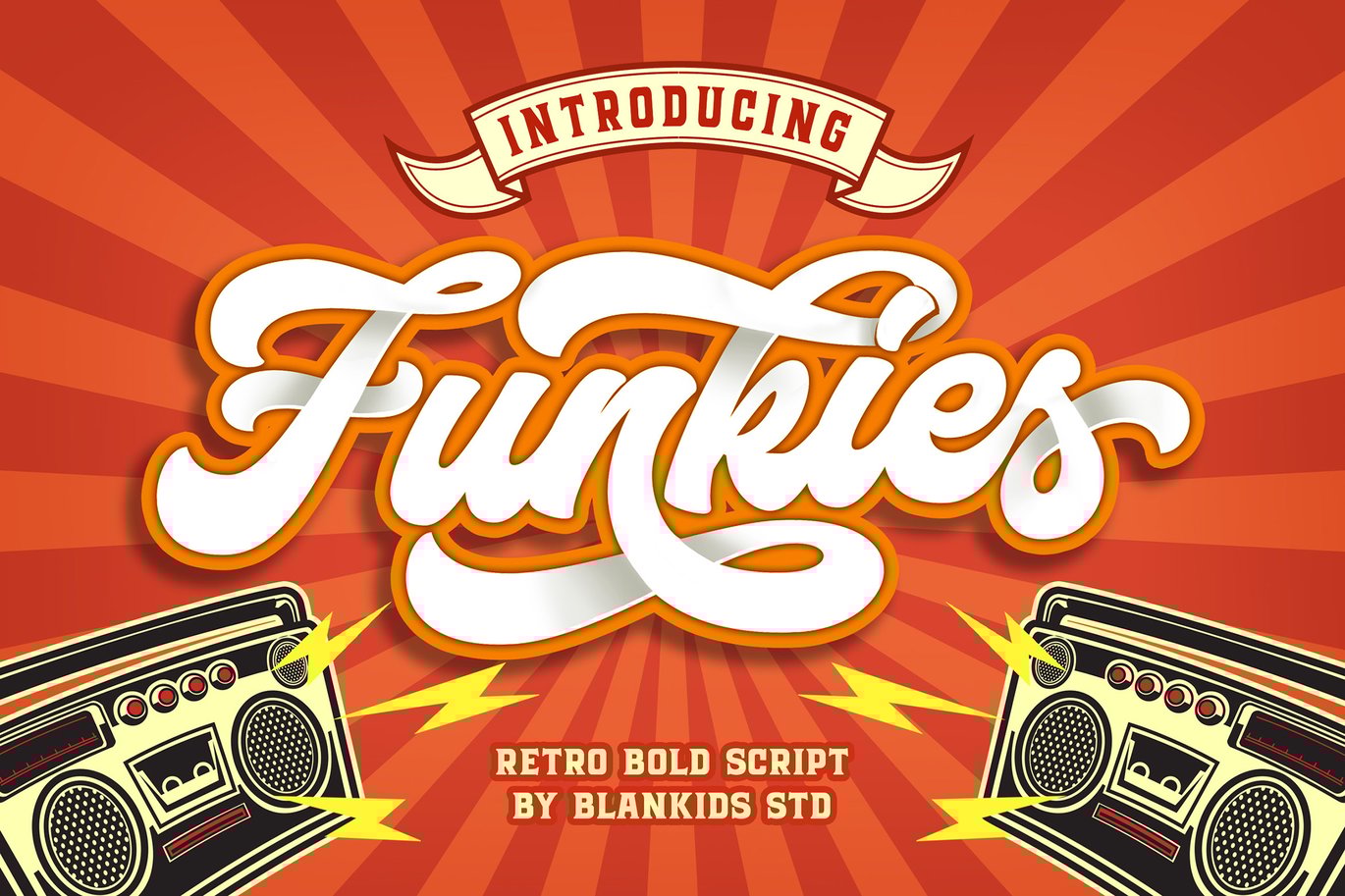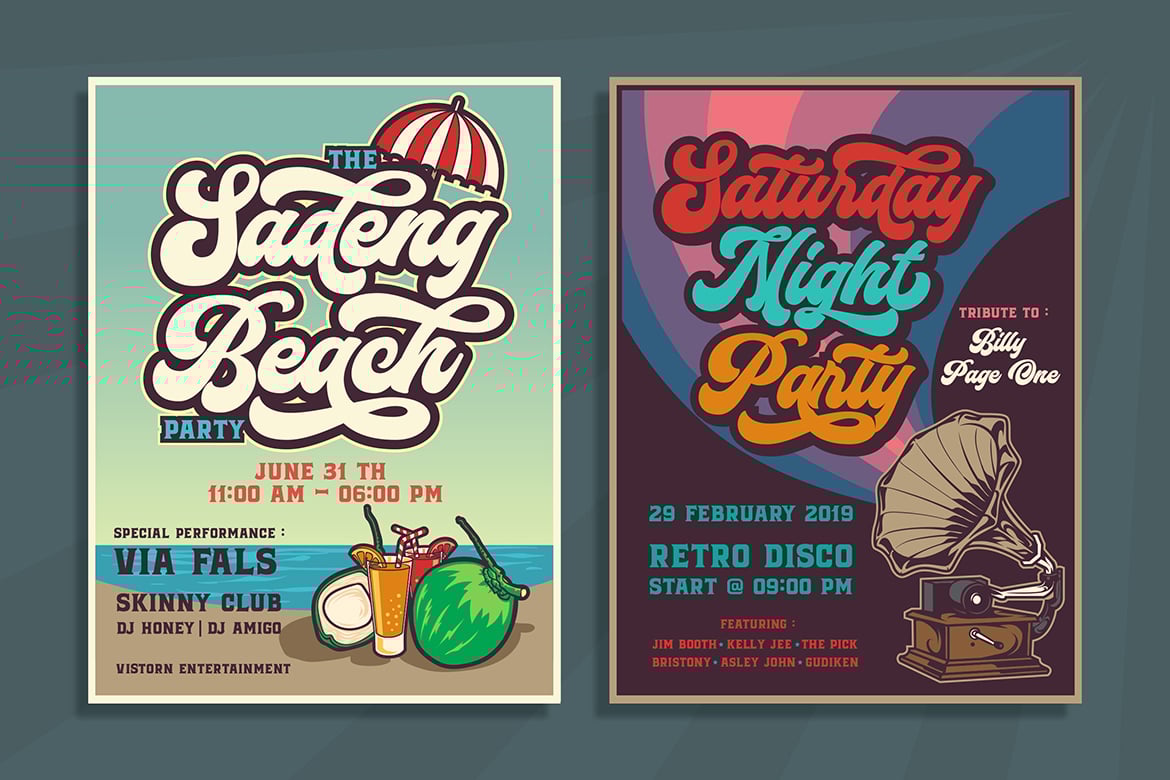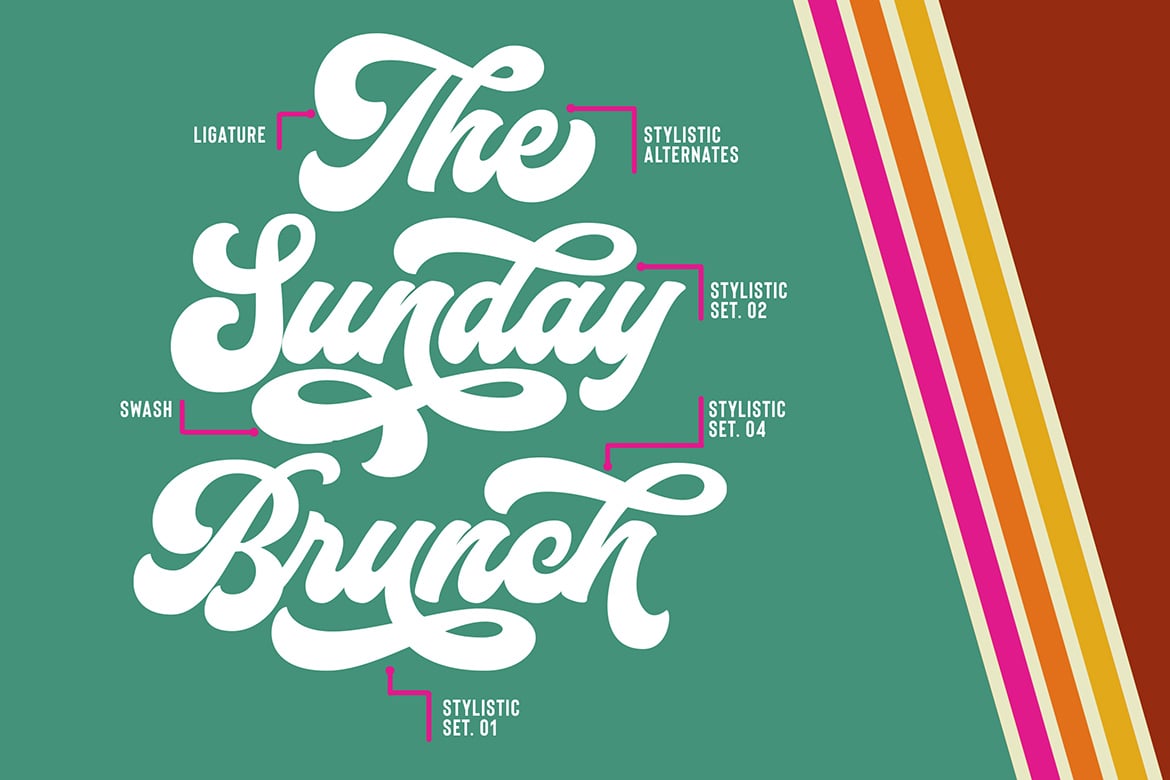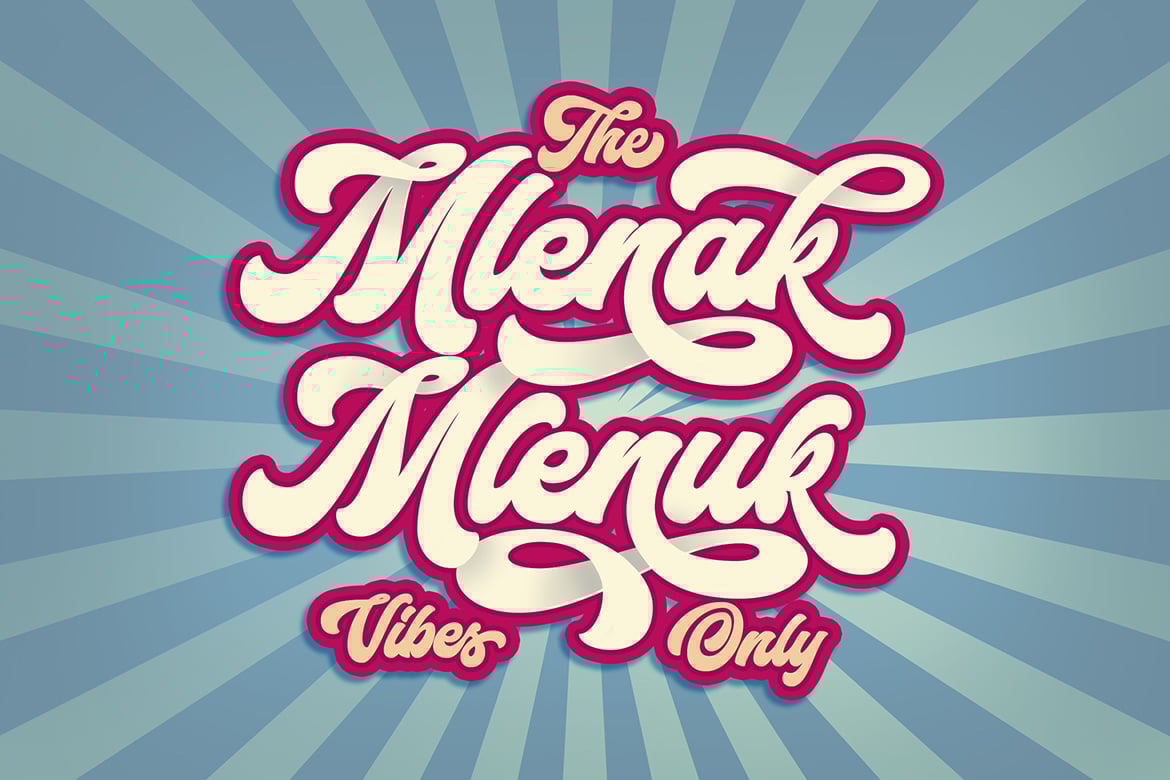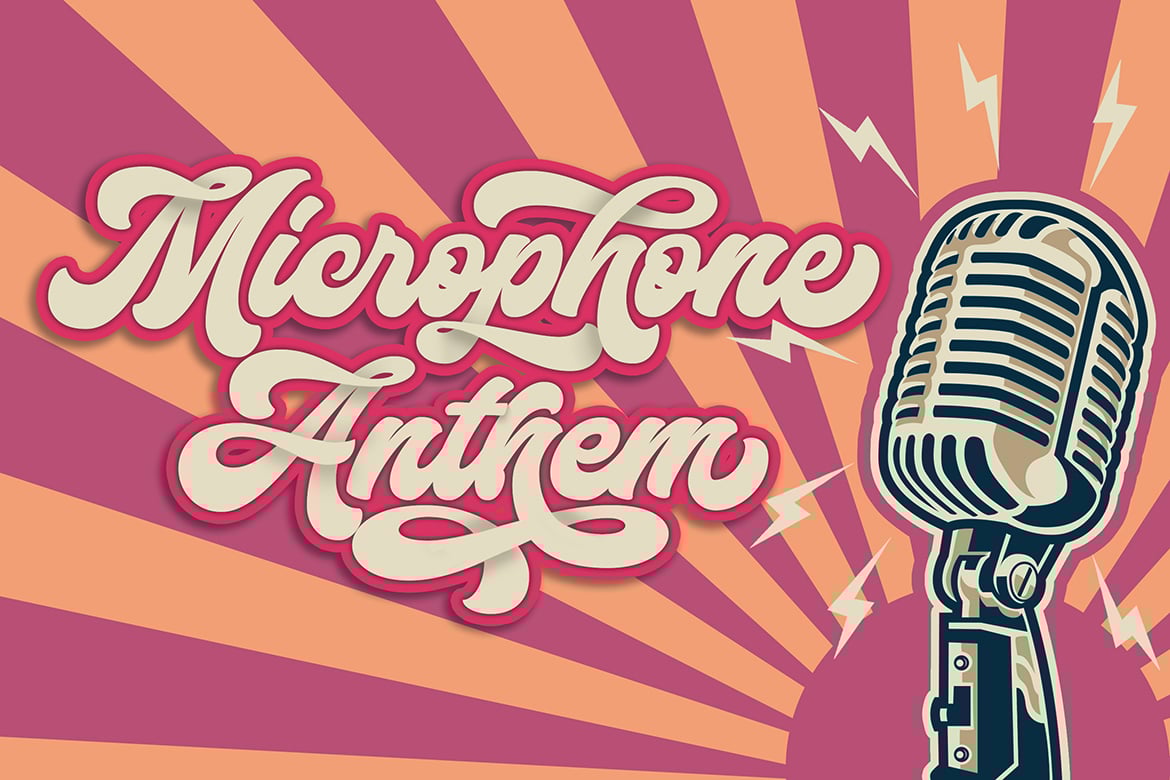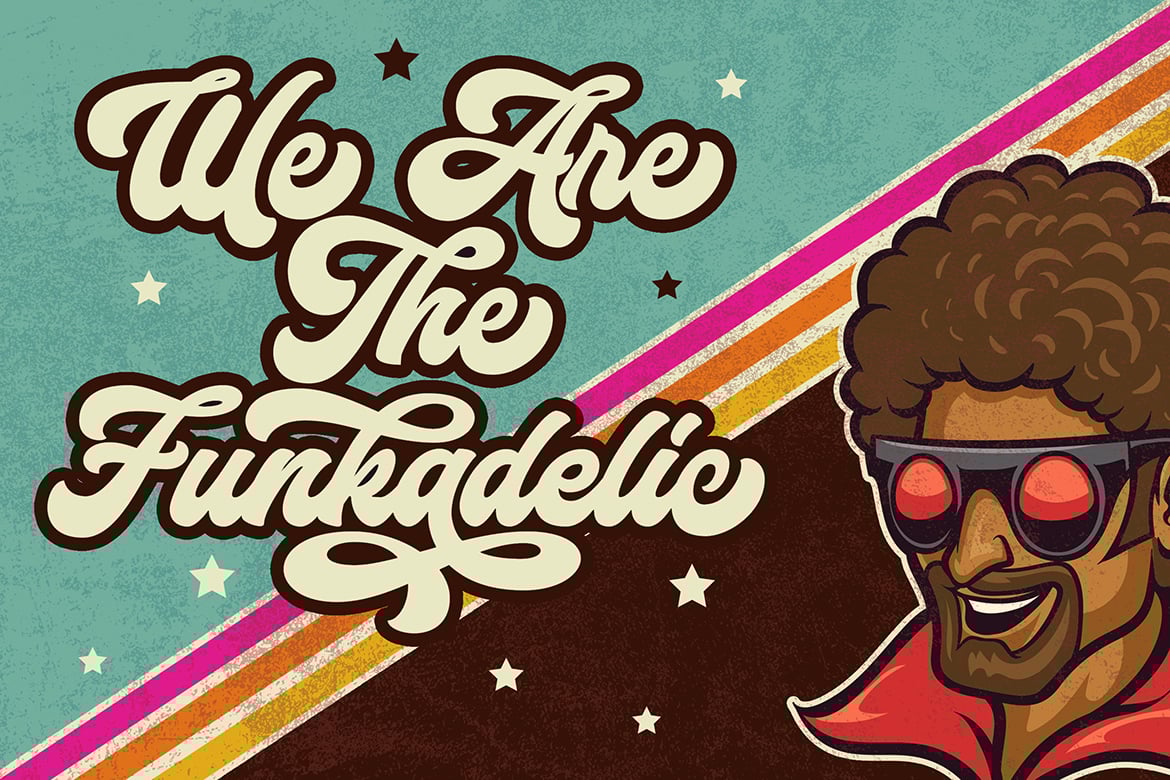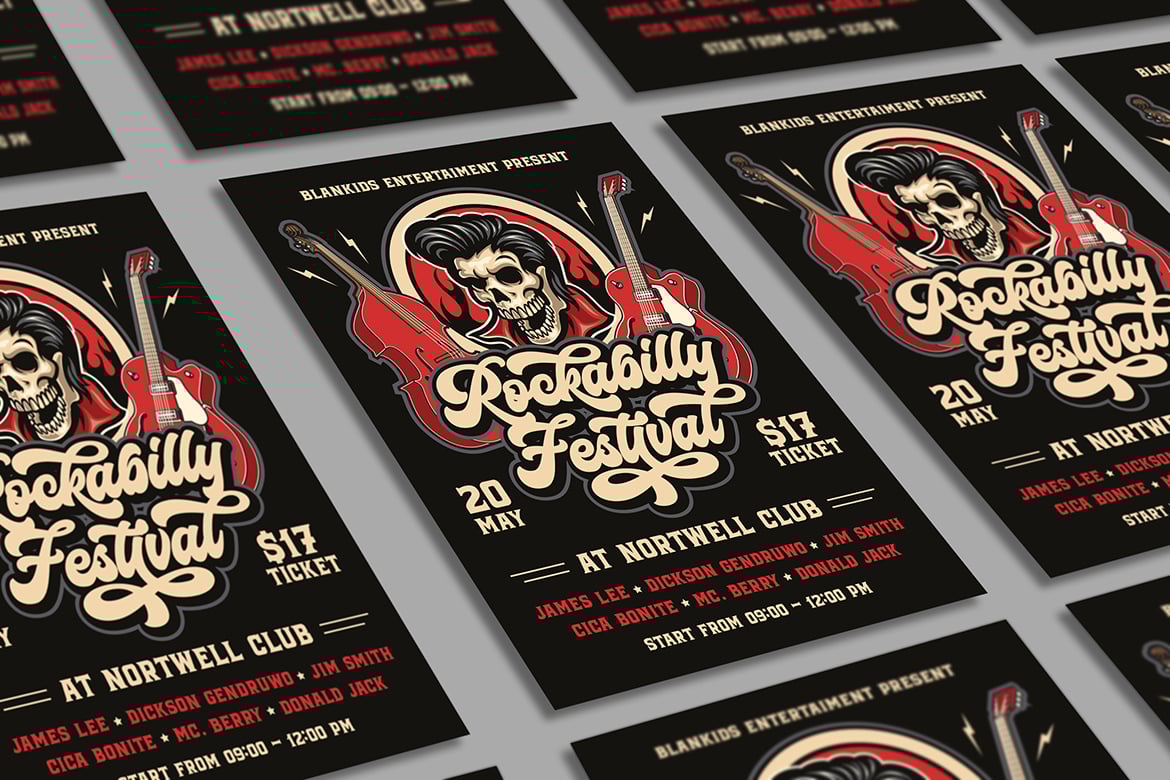
Funkies Bold Script Font
Introducing a new retro bold script called Funkies. Bring back to the 70’s era Funkies inspired by posters and album covers of funk, disco and rockabilly music with bold and fun style. Funkies came with open type features such stylistic alternates, stylistic sets, swash & ligatures good for logotype, poster, badge, book cover, tshirt design, packaging and any more.
MULTiLINGUAL ACCENT
*ŽžŠŒšŸÀÁÂÃÄÅÆÇÈÉÊËÌÍÎÏÐÑÒÓÔÕÖØÙÚÛÜÝßàáâãäåæçèéêëìíîïðñòóôõöøùúûüýÿ